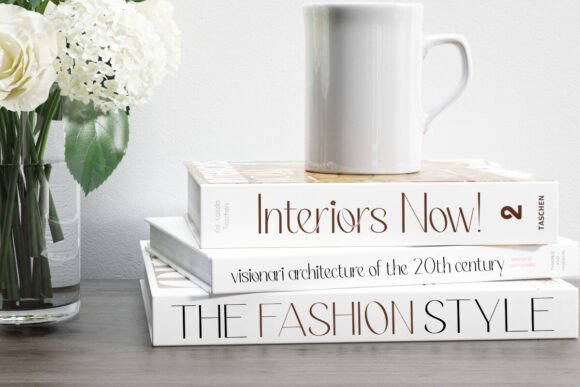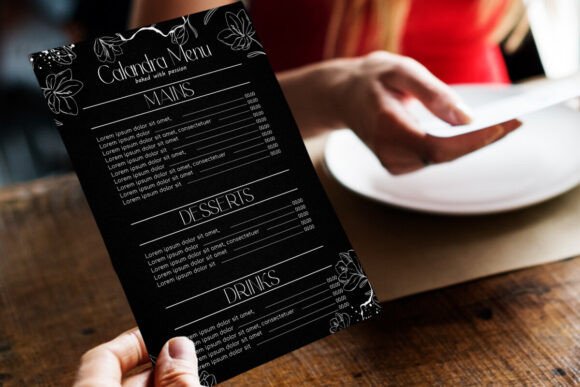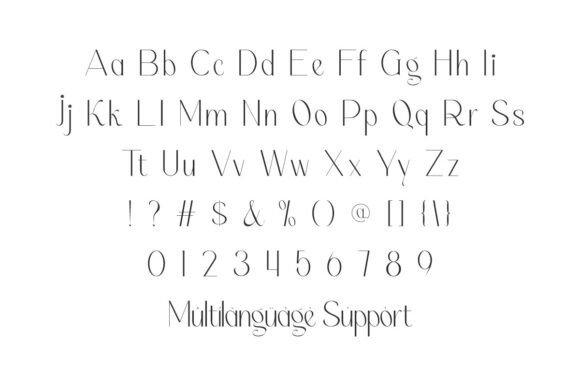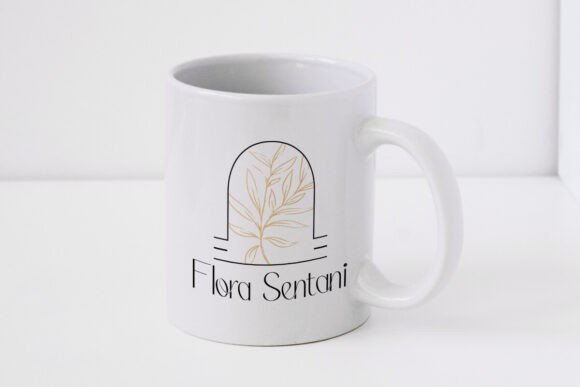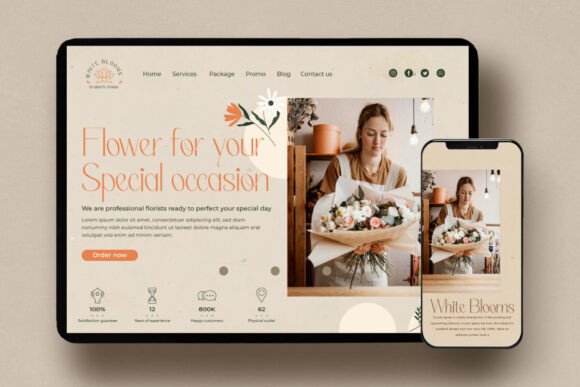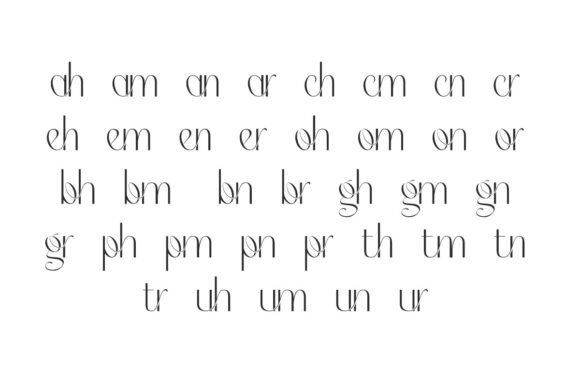
Discover the Elegance of Flora Sentani Font: Elevate Your Brand with Sophistication
In the world of typography, a font can make or break the visual identity of a brand. For designers and crafters looking for a touch of elegance and sophistication, Flora Sentani Font is an exquisite choice. This flawless, elegant serif font boasts a simple yet stunning style that can elevate any brand or creative project to new heights.
What Makes Flora Sentani Font Stand Out?
Flora Sentani Font is characterized by its clean lines, subtle serifs, and a light appearance that exudes a modern touch. This combination of classic and contemporary elements makes it incredibly versatile, suitable for a wide range of applications. Whether you’re working on a brand identity, packaging, or marketing materials, Flora Sentani Font is sure to impress.
Perfect for Exotic and Sophisticated Branding
One of the key strengths of Flora Sentani Font is its ability to convey an exotic or sophisticated feel. This makes it an ideal choice for businesses and creatives in industries such as:
- Architecture: Add a touch of elegance to your architectural designs and branding.
- Author and Writer: Enhance your book covers, author websites, and social media content with a sophisticated font.
- Boutique and Fashion: Elevate your fashion brand with a font that exudes style and luxury.
- Cosmetic and Skincare: Create a luxurious feel for your beauty brand with Flora Sentani Font.
- Interior Design and Furniture: Add a touch of sophistication to your interior design projects and branding.
- Jewelry and Glassware: Showcase your high-end products with a font that matches their elegance.
- Perfume Maker and Spa Salon: Create a luxurious and inviting atmosphere with Flora Sentani Font.
- Photography and Printing: Enhance your photography portfolios and printing projects with a touch of elegance.
- Publishing and Real Estate: Use Flora Sentani Font to add a level of sophistication to your publishing projects and real estate branding.
- Restaurant and Retail: Elevate your restaurant or retail brand with a font that exudes style and sophistication.
- Wedding and Event Planning: Add a touch of elegance to your wedding and event planning branding.
Why Choose Flora Sentani Font?
With Flora Sentani Font, you can:
- Create a modern and sophisticated brand identity.
- Easily pair with other fonts to create a unique typography combination.
- Use it for both digital and print projects, from social media content to business cards and brochures.
- Enhance your brand’s visual appeal and make a lasting impression on your audience.
Tips for Using Flora Sentani Font Effectively
To get the most out of Flora Sentani Font, consider the following tips:
- Use it as a headline font to draw attention and add a touch of elegance.
- Pair it with a sans-serif font for a clean and modern contrast.
- Experiment with different font sizes and line heights to create visual interest.
- Use it consistently across your brand’s marketing materials to create a cohesive look.
Flora Sentani Font is an exceptional choice for designers and crafters looking to add a touch of elegance and sophistication to their brand identities and creative projects. With its simple yet stunning style, versatility, and modern touch, this font is sure to elevate your brand to new heights. Whether you’re working on a luxury brand, a creative project, or simply looking for a font that exudes style and sophistication, Flora Sentani Font is an excellent choice.